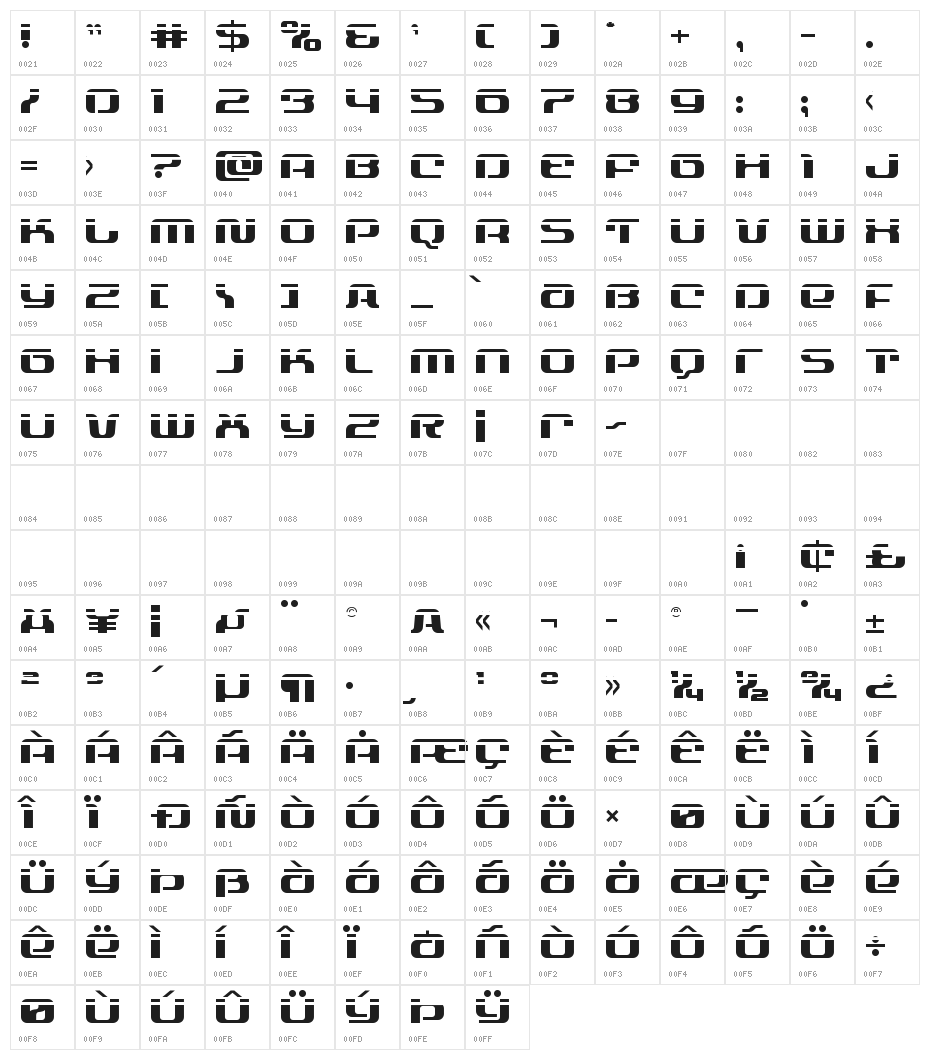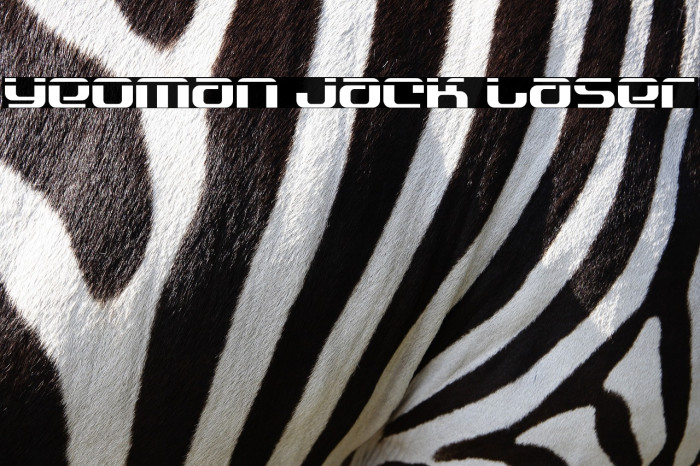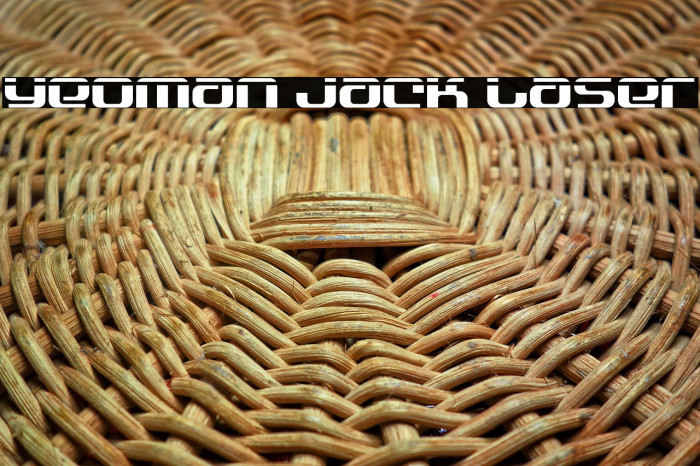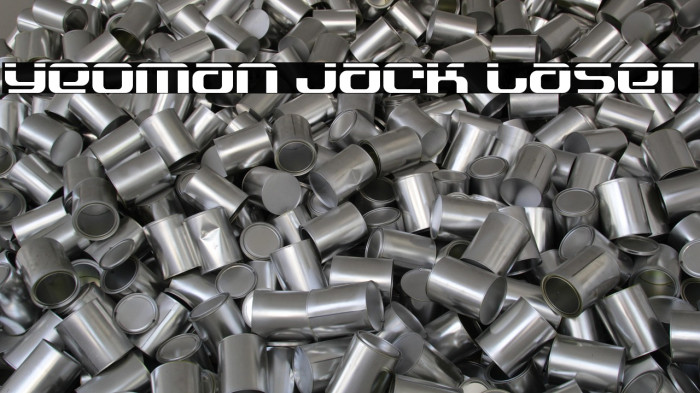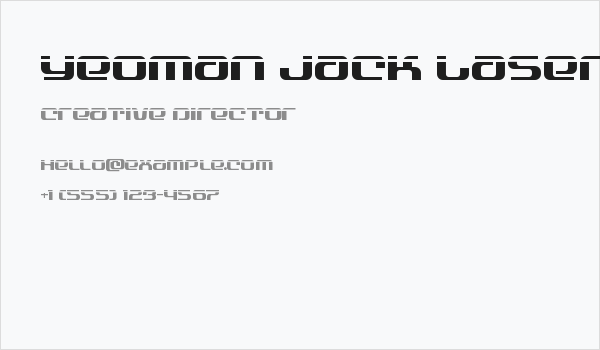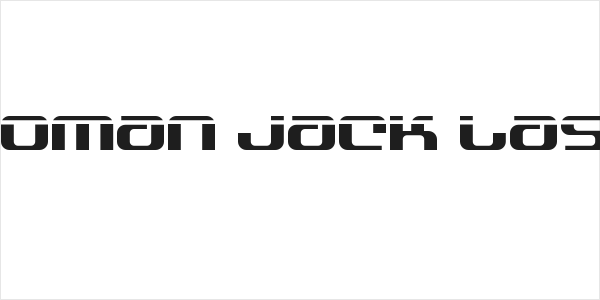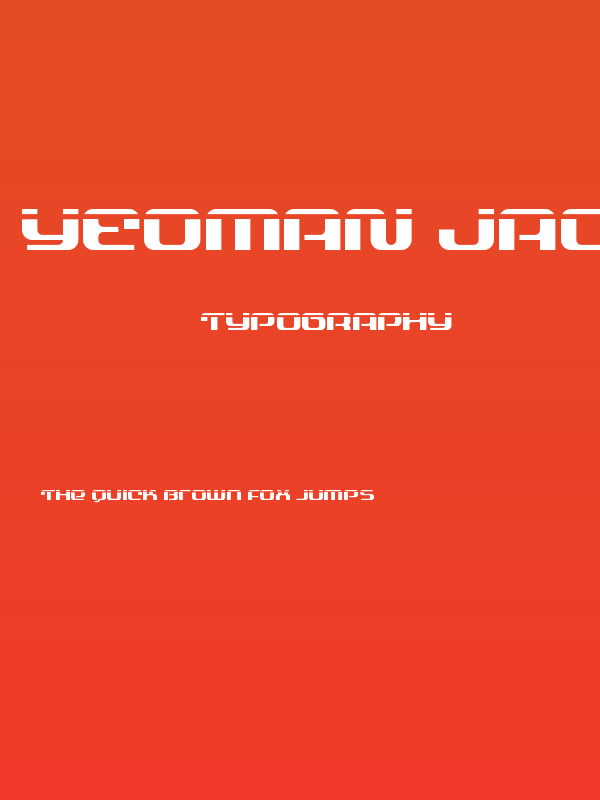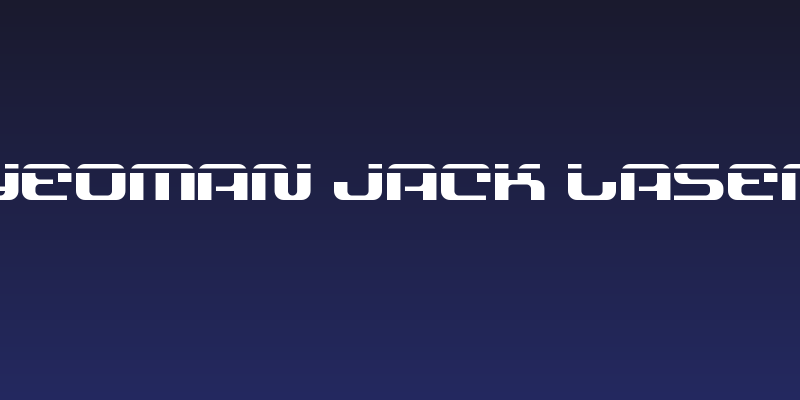
Yeoman Jack Laser Font
Yeoman Jack Laser Description
This font features a futuristic and geometric design, characterized by its bold and angular letterforms. The characters are constructed with a combination of straight lines and sharp angles, giving it a distinctly modern and tech-inspired appearance. The uppercase and lowercase letters maintain a consistent style, with the lowercase being slightly more compact. The numerals and special characters follow the same design principles, ensuring uniformity across the font. The overall look is sleek and dynamic, making it suitable for projects that require a contemporary and cutting-edge aesthetic.
| Proposed Projects | Ideal for technology branding, sci-fi movie posters, video game titles, and modern digital interfaces. |